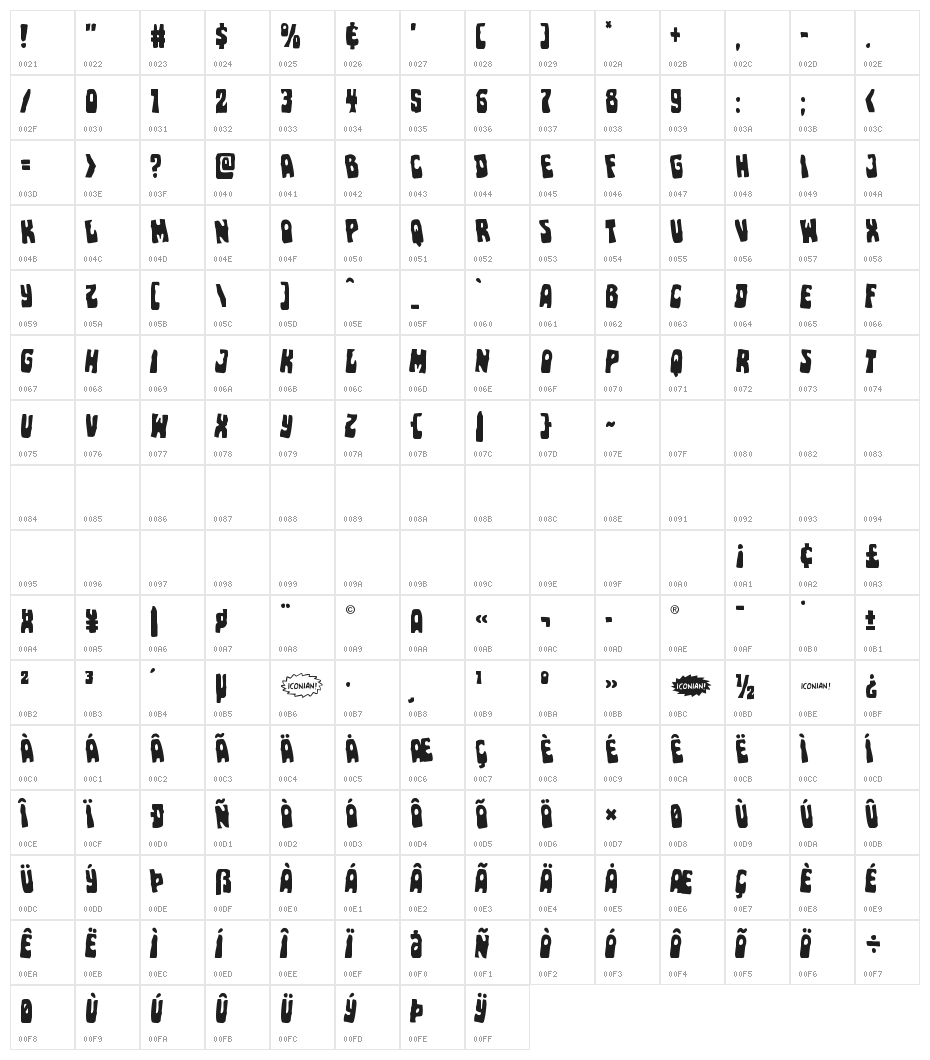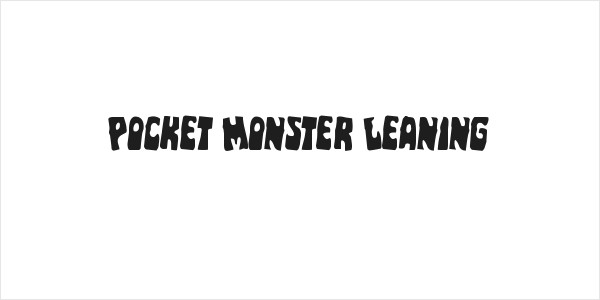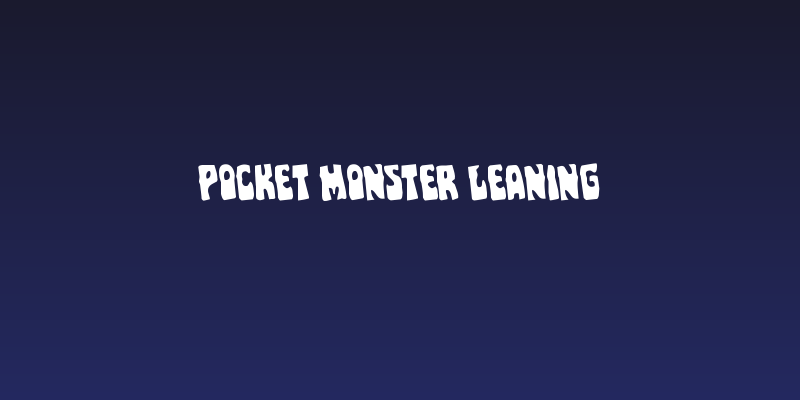
Pocket Monster Leaning Font
This font features a bold and playful design, characterized by its thick, uneven strokes and quirky, cartoonish appearance. The letters are slightly tilted, giving a dynamic and energetic feel. The uppercase and lowercase letters maintain a consistent style, with exaggerated curves and a sense of movement. Numbers and special characters follow the same playful theme, making the font suitable for creative and informal applications. The overall look is reminiscent of a whimsical, hand-drawn style, perfect for capturing attention and adding a fun element to any project.
| Overall Style | Playful, Cartoonish |
| Proposed Projects | Ideal for children's books, comic strips, playful branding, and event posters. |